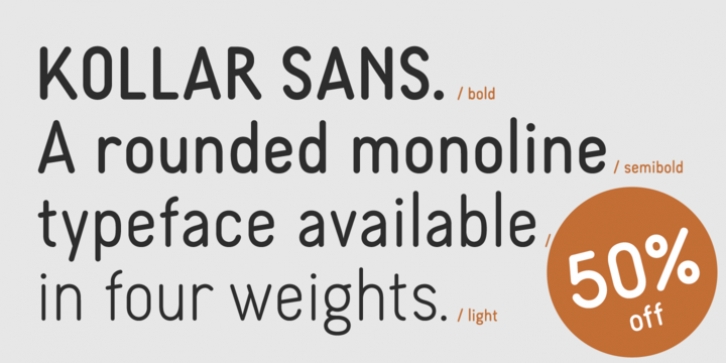
Kollar Sans was designed by Jeremy Bowen and published by seven/eight. Kollar Sans contains 5 styles and family package options.
Kollar Sans is a monoline, rounded face with strongly geometric bones, but enough quirks to give it a throwback character.
It was originally designed for an exhibition at the Seattle Art Museum featuring Japanese woodblock prints from the collection of Allan and Mary Kollar.